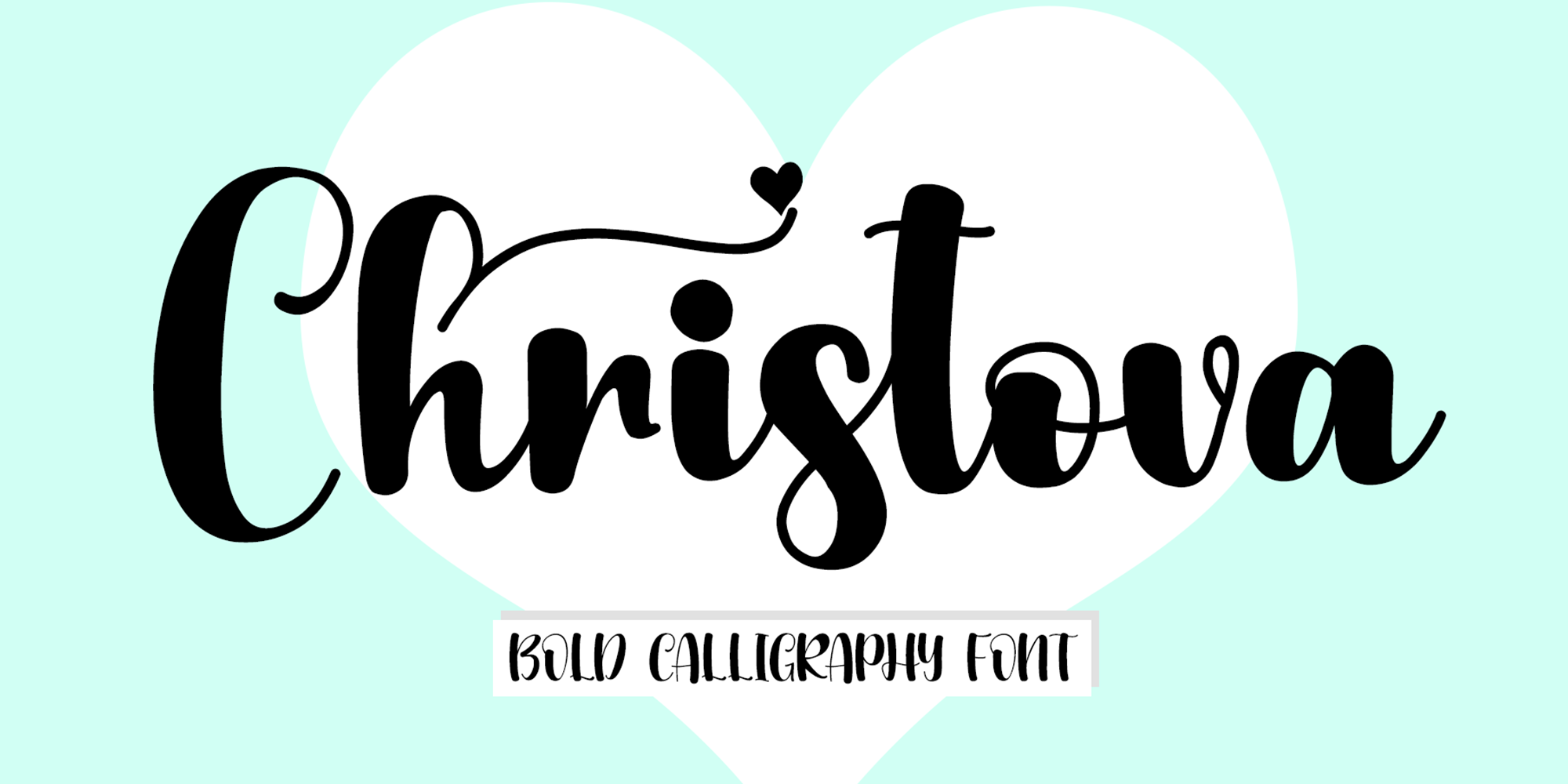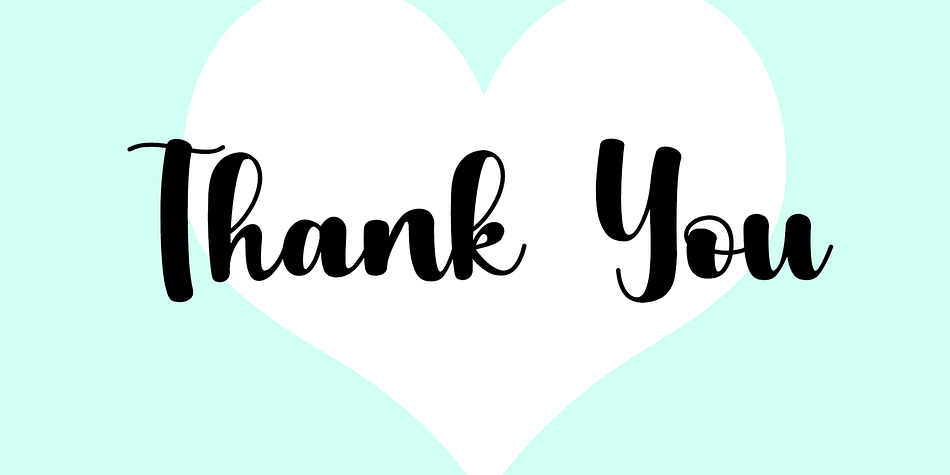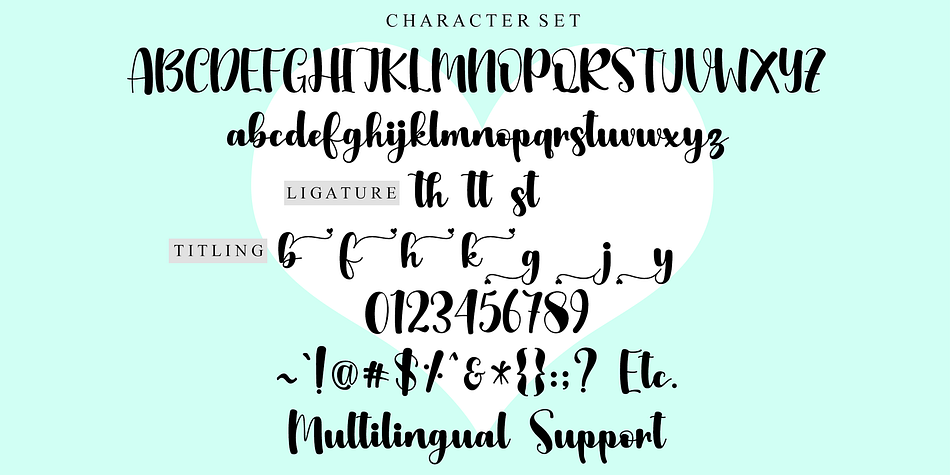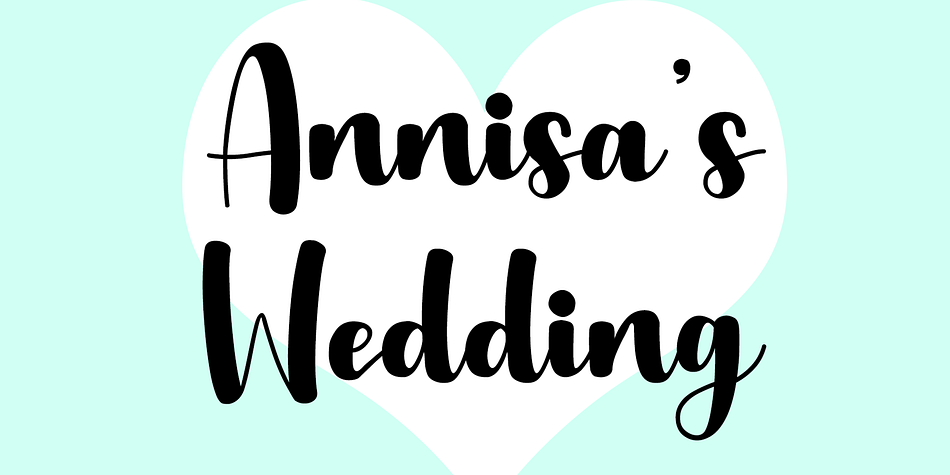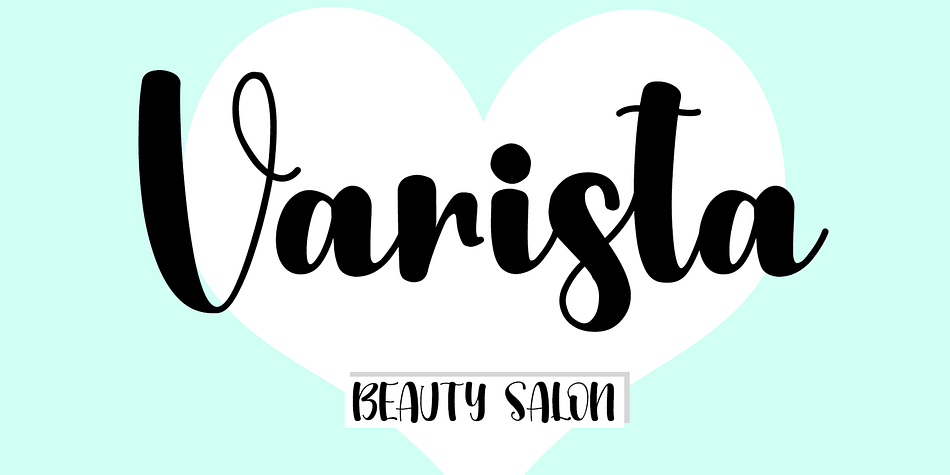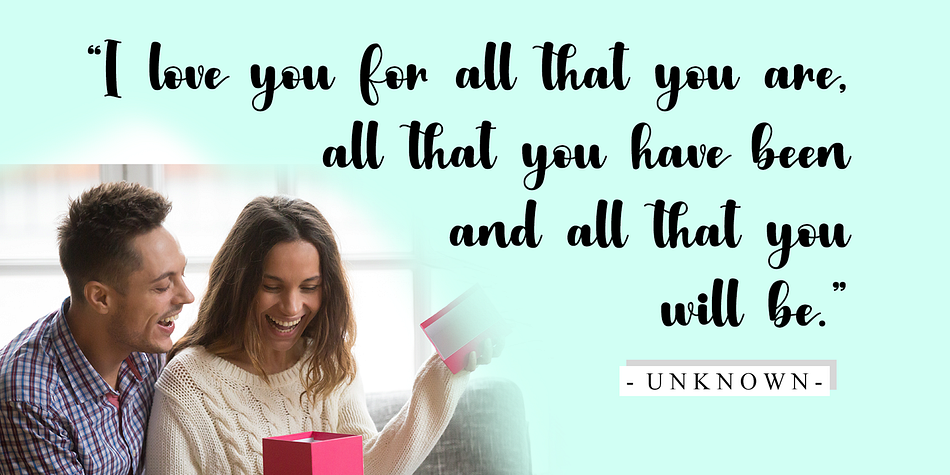
Christova
Designed by Ahmad Afandi, Christova is a brush script font family. This typeface has two styles and was published by Letterafa Studio.
Christova is a trendy, elegant, and modern calligraphy font that will engage your audience and make your branding stand out. This stylish font can be used for a host of different content needs and projects.
Foundry Letterafa Studio
Designer Ahmad Afandi